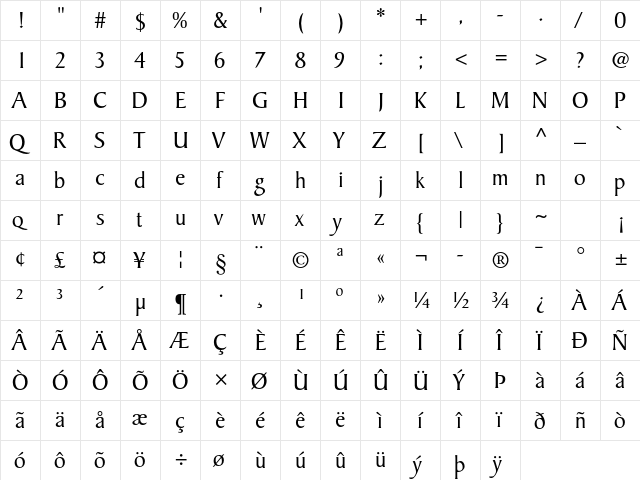
Baker Signet Std Regular
| Designer | Arthur Baker |
Design Context for Baker Signet Std Typeface
Baker Signet Std offers clean, dependable letterforms without strong stylistic allegiance, making it a practical choice for designers who need flexibility.